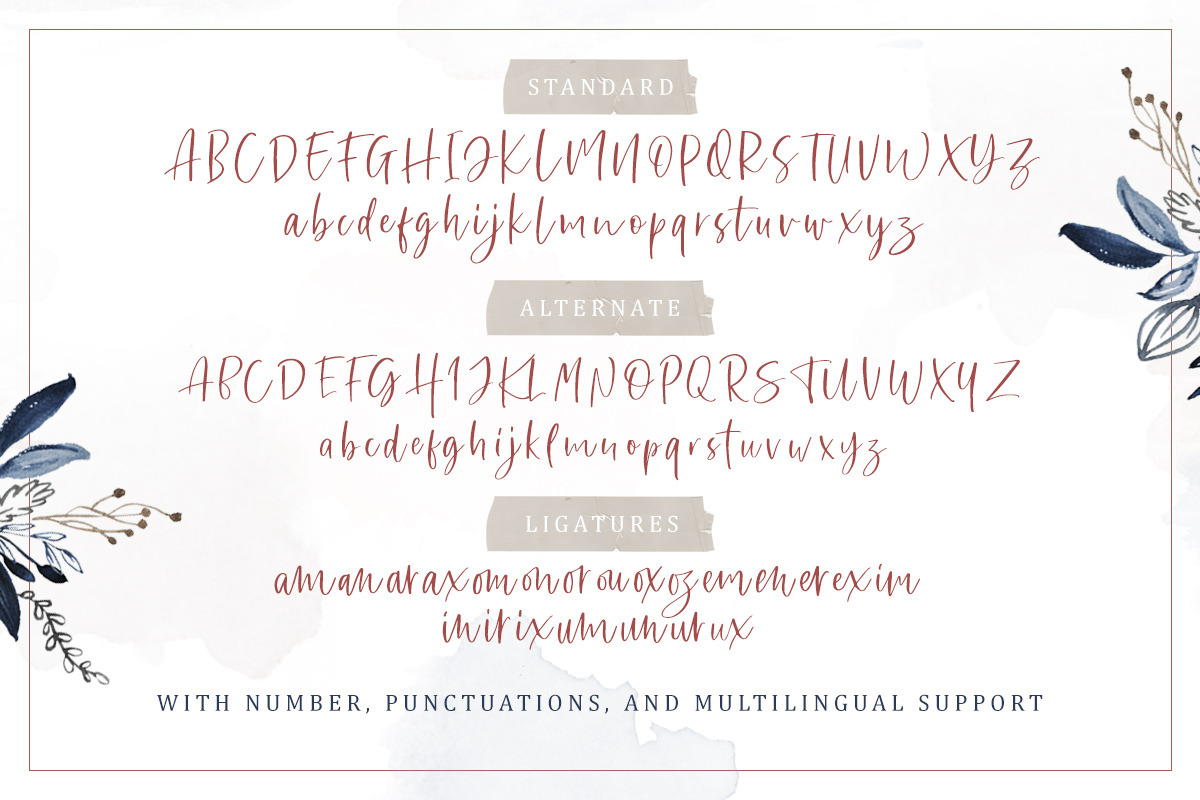
Sharon Baker - Modern Script
Introducing, Sharon Baker - Modern Script
Sharon Baker a modern script that bring lovely feel. The natural hand writing script is suitable for you who needs a typeface for headline, logotype, apparel, invitation, branding, packaging, advertising etc. This typeface is comes in uppercase, lowercase, punctuations, symbols & numerals, stylistic set alternate, ligatures, etc also support multilingual.
Foreign Languages Support: ÀÁÂÃÄÅÇÈÉÊËÌÍÎÏÐÑÒÓÔÕÖØÙÚÛÜÝßàáâãäåæçèéêëìíîïðñòóôõöøùúûüýÿ